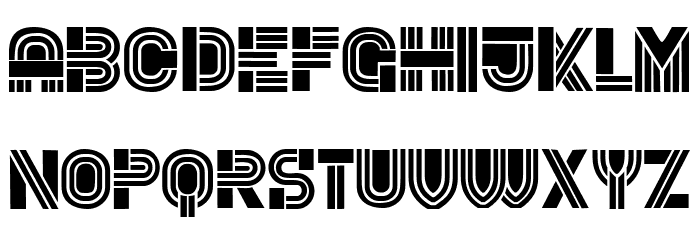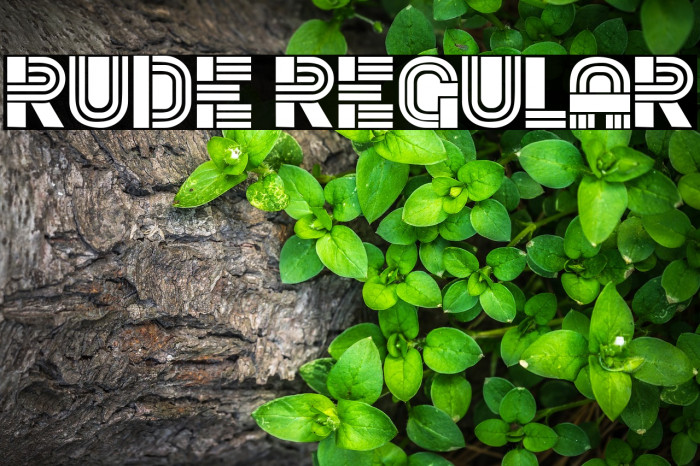
Rude Regular Font
This font features a bold, geometric design with a strong emphasis on horizontal and vertical lines. The characters are constructed with multiple parallel lines, creating a layered effect that adds depth and visual interest. The uppercase letters are particularly striking, with each character displaying a unique pattern of lines and shapes. The font's style is reminiscent of Art Deco, with a modern twist that makes it suitable for contemporary designs. Its boldness and intricate detailing make it ideal for projects that require a standout display typeface.
A bold, geometric font with layered lines and Art Deco influences.
- Font: Rude Regular
- Proposed Projects: Ideal for posters, album covers, branding, and any project needing a bold, eye-catching display font.
- Overall Style: Modern, Art Deco